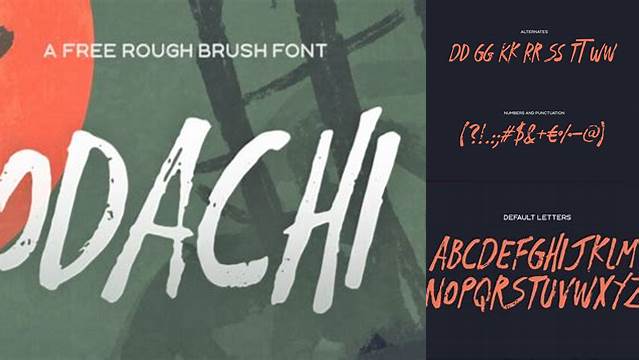
Odachi Font: Free Brush Style For Bold Designs
Are you looking to inject some raw, untamed energy into your designs? Then look no further, guys! The Odachi Free Brush Font is here to empower your creative projects with its dynamic and expressive strokes. This font isn't just a typeface; it's a statement, a bold declaration of individuality and artistic flair. Whether you're crafting eye-catching posters, designing impactful logos, or adding a personal touch to your branding, Odachi is your weapon of choice. Let's dive deep into what makes this font so special and how you can use it to create stunning visuals.
What Makes Odachi Free Brush Font So Special?
The Odachi Free Brush Font stands out from the crowd due to its handcrafted feel and unapologetically bold design. Unlike sterile, computer-generated fonts, Odachi retains the authentic texture and imperfections of a brushstroke, giving it a unique, human touch. This makes it perfect for projects that need to convey a sense of authenticity, energy, and passion.
The Handcrafted Feel
The beauty of Odachi lies in its imperfections. Each character is meticulously crafted to mimic the natural flow of a brush, with varying stroke widths, textured edges, and subtle irregularities. These details add depth and character to the font, making it feel less like a digital creation and more like a work of art. When you use Odachi, you're not just using a font; you're incorporating a piece of handmade artistry into your design.
Bold and Expressive Strokes
Odachi is not a font for the faint of heart. Its bold, thick strokes demand attention and exude confidence. This makes it ideal for headlines, titles, and other prominent text elements where you want to make a strong impact. The expressive nature of the font also allows it to convey a wide range of emotions, from playful energy to raw intensity, depending on the context.
Versatility in Design
Despite its bold personality, Odachi is surprisingly versatile. It works well in a variety of design applications, from print to digital. Its strong character makes it suitable for branding, advertising, packaging, and even web design. Whether you're creating a vintage-inspired poster or a modern, edgy website, Odachi can adapt to your vision and help you achieve the desired aesthetic.
Key Features of Odachi Free Brush Font
- Authentic Brushstroke Texture: The font retains the natural texture and imperfections of a brushstroke, adding depth and character to your designs.
- Bold and Expressive Design: Odachi's thick strokes and dynamic lines command attention and convey a sense of energy and passion.
- Versatile Application: Suitable for a wide range of design projects, including branding, advertising, packaging, and web design.
How to Use Odachi Free Brush Font in Your Projects
Now that you know what makes Odachi so special, let's explore how you can use it effectively in your design projects. Here are some ideas to get you started:
Branding and Logo Design
Odachi Free Brush Font can be a powerful tool for creating memorable and impactful brands. Its bold and expressive nature makes it perfect for logos that need to stand out from the competition. Consider using Odachi for the main wordmark or as a complementary typeface for headlines and taglines. The font's handcrafted feel can also add a touch of authenticity and personality to your brand identity.
For example, if you're creating a brand for a coffee shop that prides itself on its artisanal brewing methods, Odachi could be an excellent choice. Its brushstroke texture would evoke the image of a skilled barista crafting each cup with care, while its bold strokes would convey the strength and richness of the coffee itself.
Poster and Flyer Design
When it comes to posters and flyers, grabbing attention is key. Odachi Free Brush Font excels at this, thanks to its bold and dynamic design. Use it for headlines and key messages to create a visually striking composition that commands attention. The font's expressive strokes can also help you convey the mood and tone of your event or promotion.
Imagine you're designing a poster for a rock concert. Odachi's raw and energetic feel would perfectly capture the spirit of the music, while its bold presence would ensure that your message is seen from across the room. You could pair it with grungy textures and vibrant colors to create a truly impactful design.
Web Design and Digital Media
Odachi Free Brush Font isn't just for print; it can also be a valuable asset in web design and digital media. Use it for headlines, banners, and other prominent text elements to add personality and visual interest to your website or social media graphics. Just be mindful of readability, especially when using it for body text. In most cases, it is best paired with a cleaner, more legible font for body paragraphs.
Unleash Your Creativity with Odachi
In conclusion, the Odachi Free Brush Font is a powerful tool for designers who want to make a bold statement. Its handcrafted feel, expressive strokes, and versatile application make it a valuable asset in any designer's toolkit. Whether you're working on branding, advertising, packaging, or web design, Odachi can help you create stunning visuals that capture attention and leave a lasting impression. So go ahead, download Odachi, and unleash your creativity with its dynamic and untamed strokes!